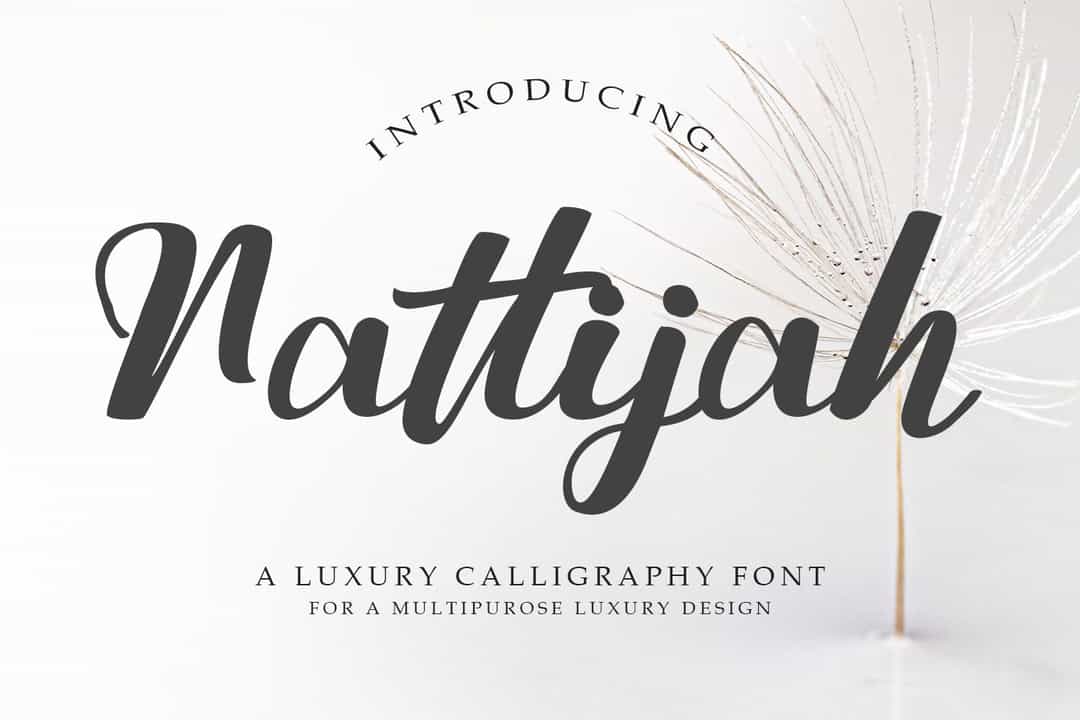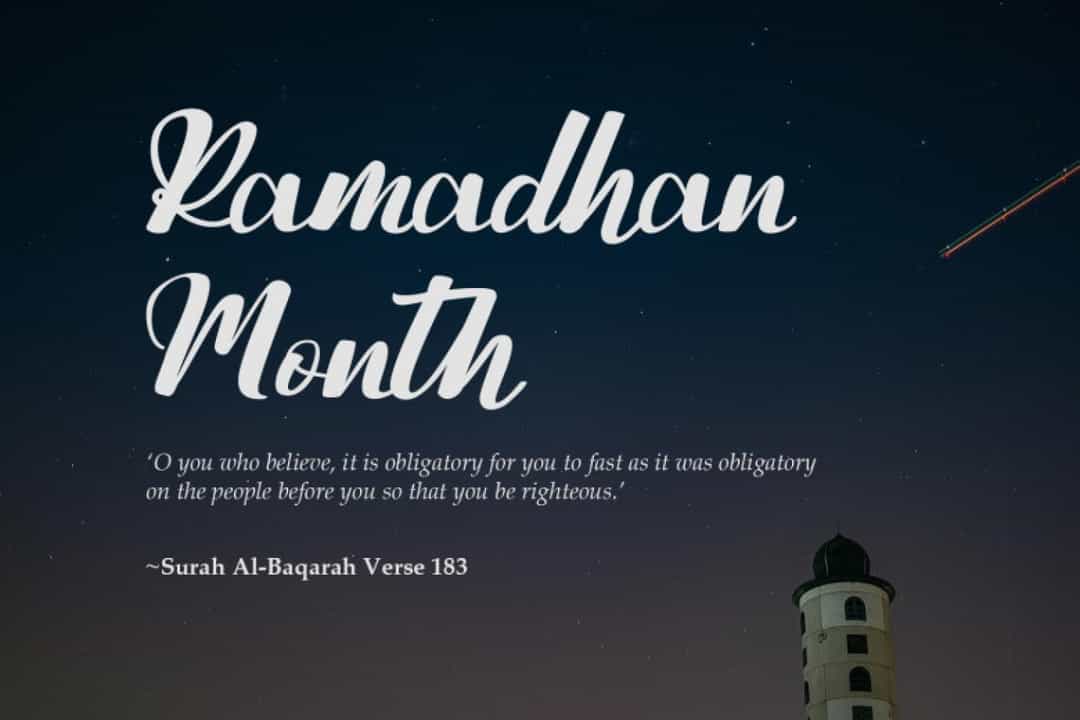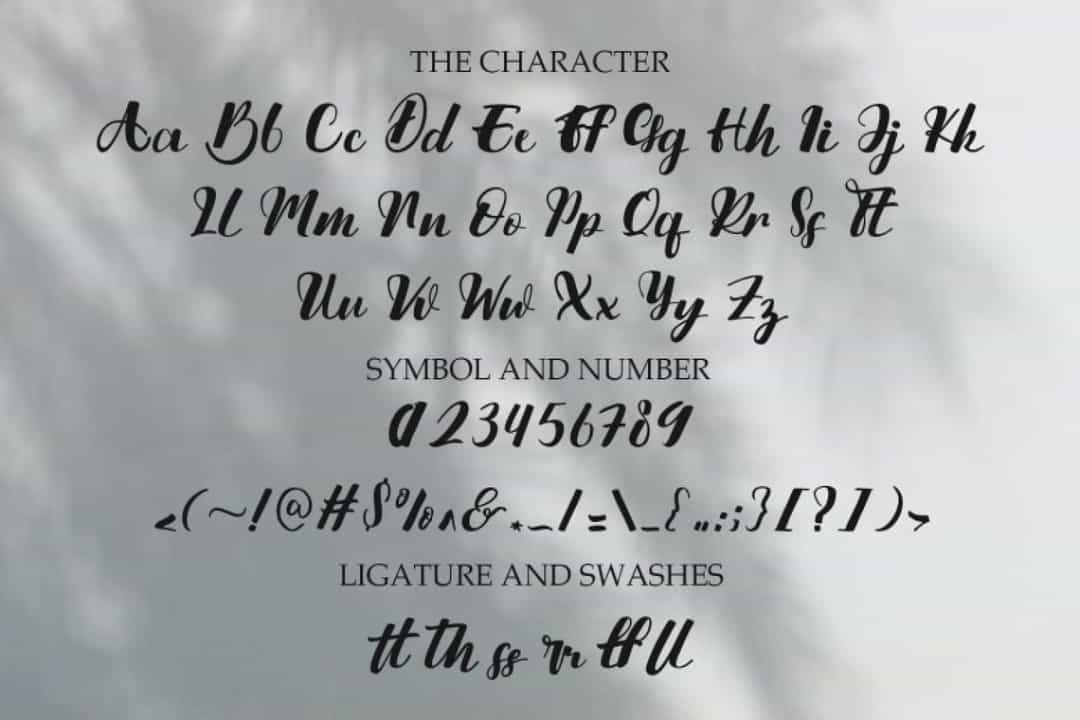
Discover Nattijah Font, part of the Calligraphy collection—a versatile and unique font perfect for adding a personal touch to your projects. Download it for free and enjoy crafting designs with style, from invitations to social media posts. This font is available exclusively for personal use, giving you the freedom to create without limits. Unlock your creativity with Nattijah Font today!
It can be said that Nattijah is a graceful brush script font with splendid flow. It is ideal to use this font in custom designs for things like wedding invites, thank you notes, invitation to a wedding, greeting cards, logos for weddington and many more.